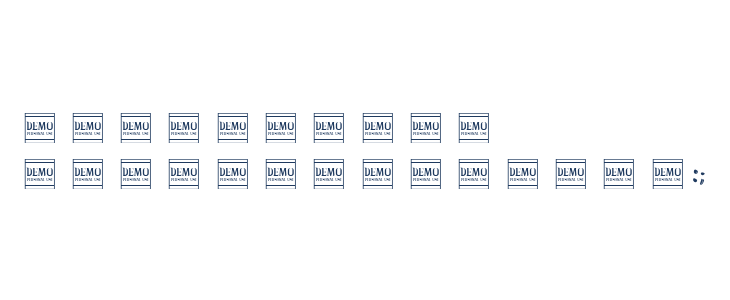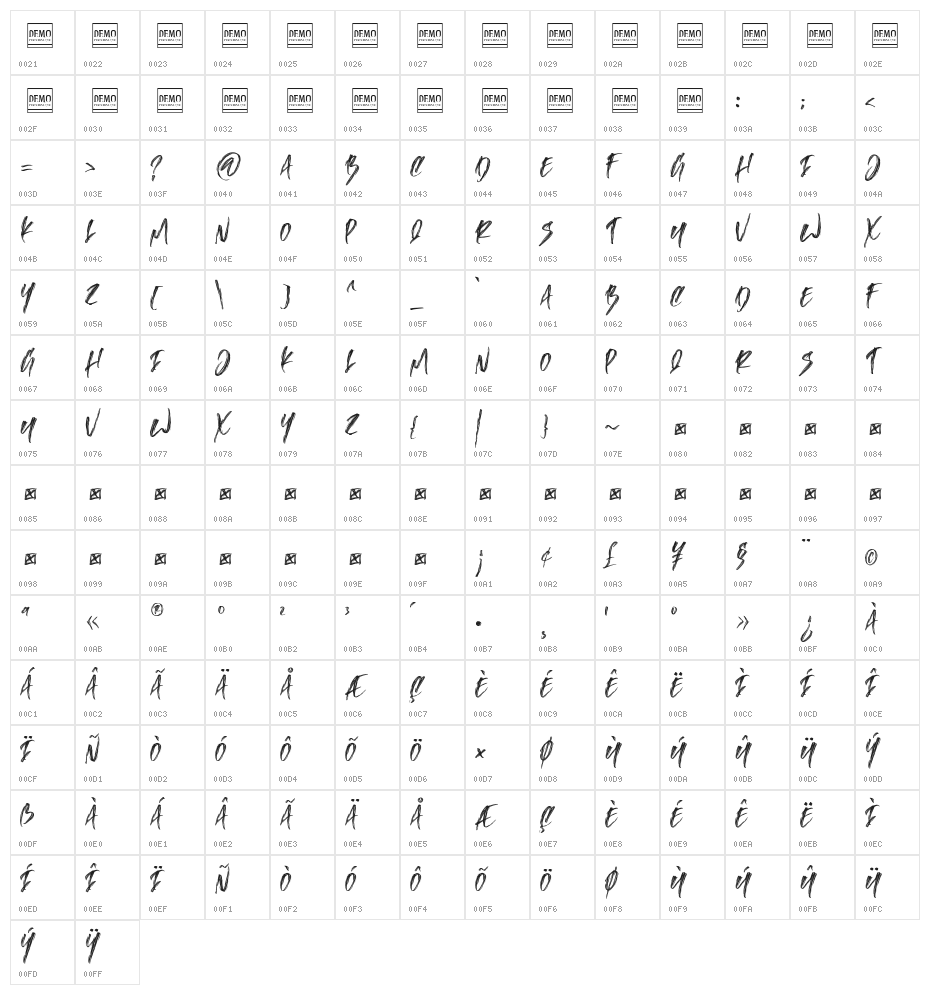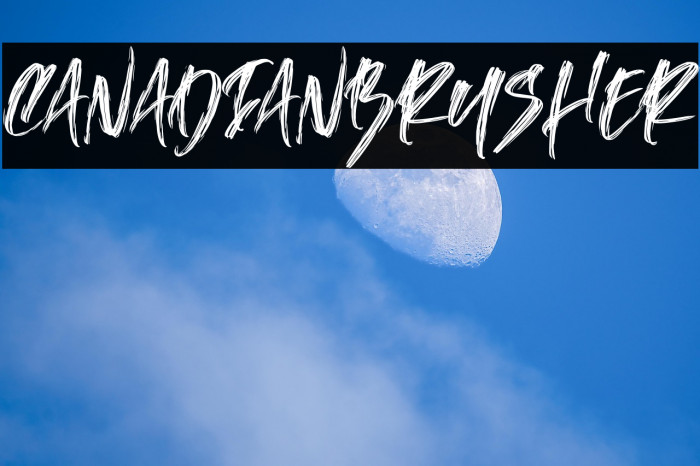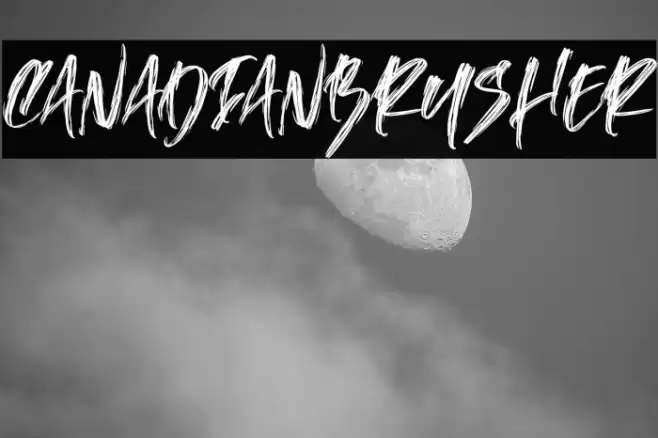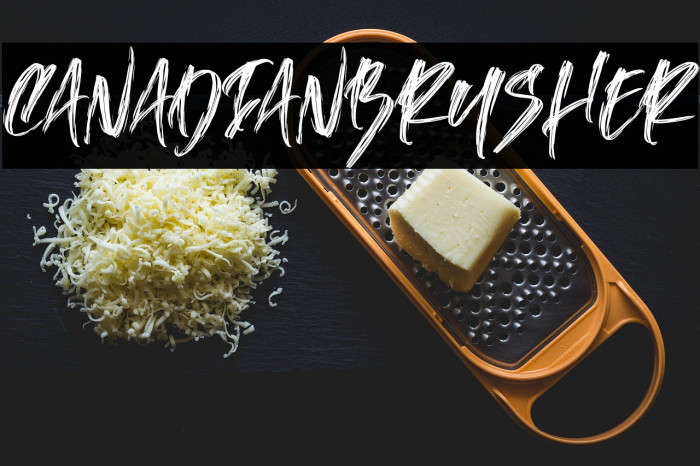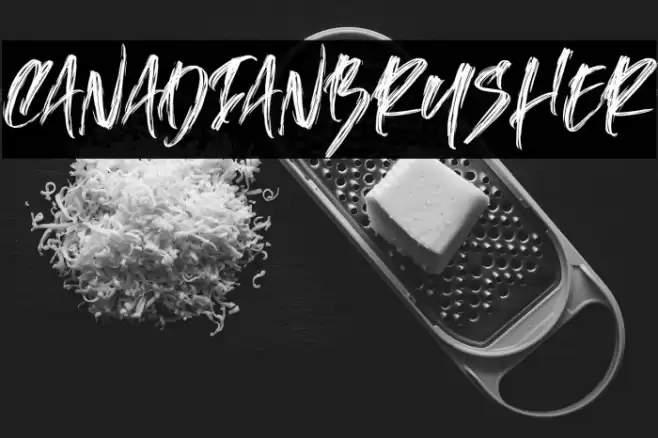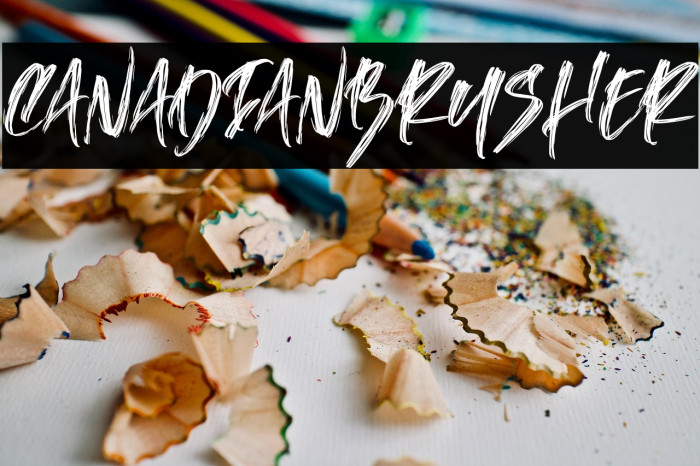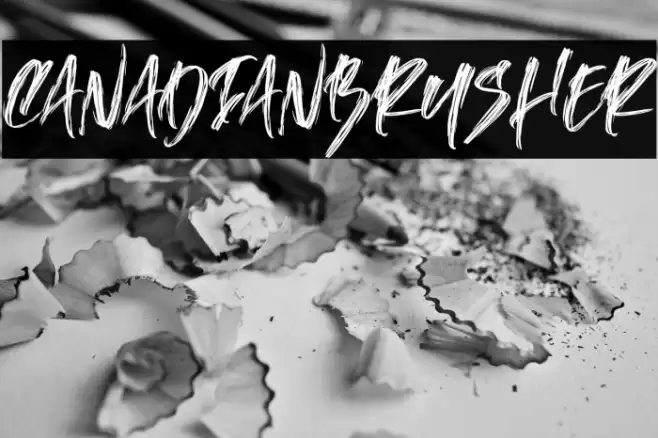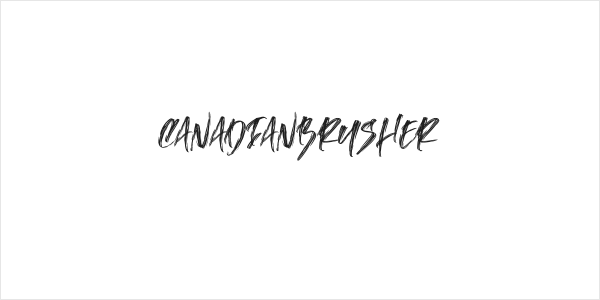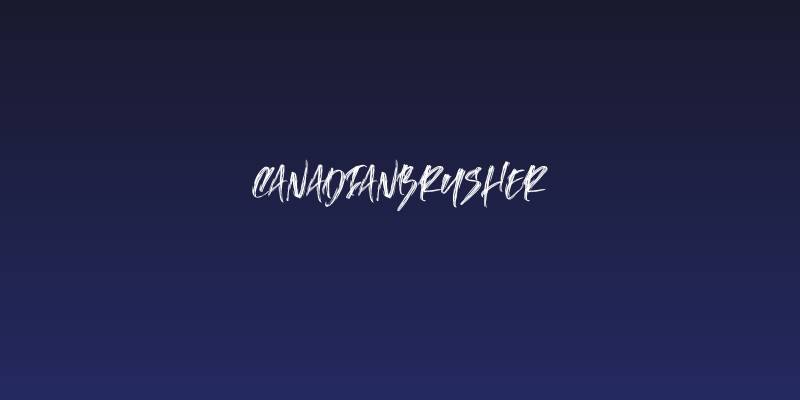
CanadianBrusher Font
CanadianBrusher Description
This brush-style font exudes a dynamic and energetic feel, characterized by its bold, sweeping strokes and a slightly rough texture that mimics the effect of a dry brush. The uppercase and lowercase letters maintain a consistent flow, with each character displaying a unique flair that adds to the overall artistic appeal. The font's irregular edges and varying stroke widths contribute to its handcrafted appearance, making it ideal for projects that require a personal touch. Its expressive nature is perfect for creative designs, adding a sense of movement and vitality to any text.
| Proposed Projects | Ideal for posters, branding, album covers, and any creative project that benefits from an artistic, personal touch. |